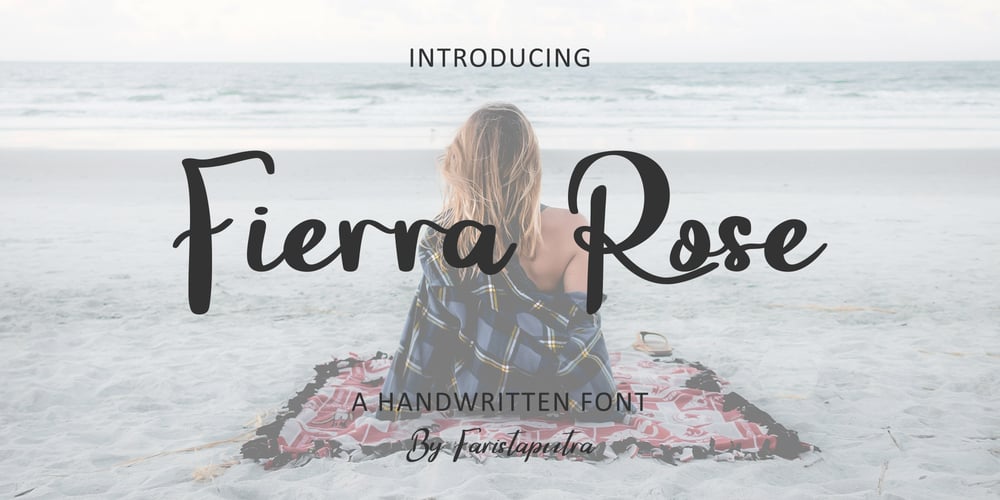
FA Fierra Rose Font Family was designed by Frederik Aristaputra and published by Faristaputra. FA Fierra Rose contains 3 styles and family package options. Fierra Rose is a handlettering font that combines natural beauty. With smooth yet characteristic strokes, this font reflects a soft, elegant impression while conveying a natural and organic atmosphere. Each letter is designed to give a personal touch, as if written by a caring hand.